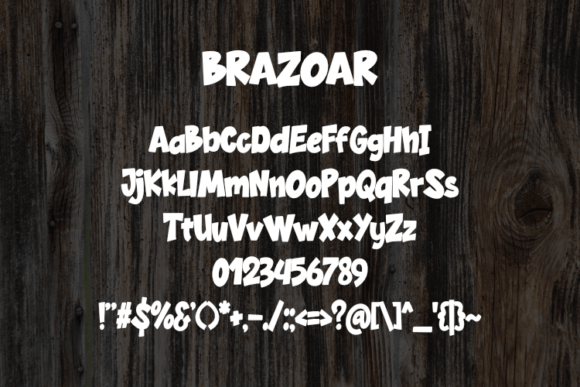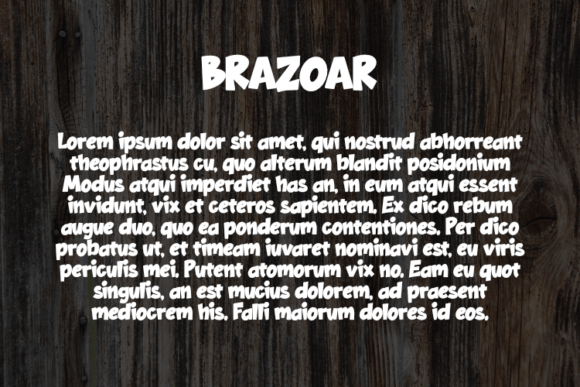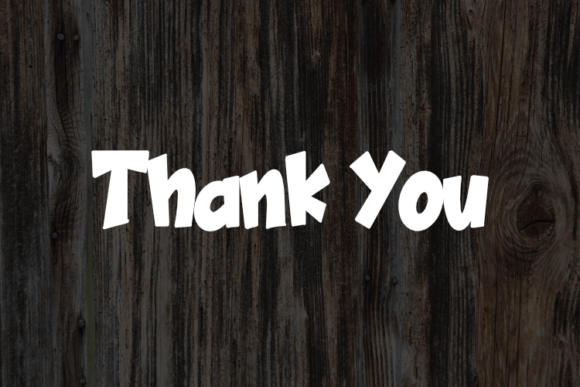
Unlock Endless Design Possibilities with Brazoar Font
In the realm of design, the right font can elevate your creative vision from ordinary to extraordinary. For designers and crafters seeking a versatile and impactful typeface, Brazoar Font emerges as a game-changer. Specifically crafted to infuse life into apparel designs, Brazoar is not just a font but a key to unlocking a myriad of design possibilities. Whether you’re working on T-shirts, accessories, or any other wearable art, Brazoar stands out for its adaptability, unique style, and compatibility across all design software platforms.
The Versatility of Brazoar Font
Brazoar’s design philosophy revolves around versatility. This font is meticulously crafted to ensure it can be seamlessly integrated into various design projects. From casual T-shirt designs to more sophisticated accessory designs, Brazoar adapts effortlessly. Its unique typographic edge not only captures attention but also provides a distinctive flair that can set your designs apart from the crowd.
Transforming Your Creative Vision
Brazoar Font is more than just a typeface; it’s a tool that transforms your ideas into remarkable realities. Its unique design elements offer a fresh perspective, enabling designers to experiment with new styles and themes. With Brazoar, you can easily create stunning apparel designs that resonate with your audience. Whether you’re aiming for a vintage look, a modern aesthetic, or something in between, Brazoar provides the flexibility to achieve your desired outcome.
Why Choose Brazoar Font?
- Versatility: Perfect for a wide range of design projects, from T-shirts and hoodies to accessories and more.
- Unique Style: Offers a distinctive typographic edge that adds a fresh touch to your designs.
- Easy to Use: Designed to be user-friendly, making it accessible for both beginners and seasoned designers.
- Limitless Creativity: Empowers you to turn your creative visions into standout designs.
Tips for Maximizing Brazoar’s Potential
To truly harness the power of Brazoar Font, consider experimenting with different design elements and software features. Here are a few tips:
- Play with Colors: Brazoar looks great in various colors and gradients. Don’t be afraid to experiment with different palettes.
- Mix and Match: Combine Brazoar with other fonts for a unique contrast that adds depth to your designs.
- Utilize Effects: Explore different text effects and styles within your design software to give Brazoar an extra edge.
Brazoar Font is a powerful tool for designers and crafters looking to elevate their apparel designs. Its versatility, unique style, and technical compatibility make it an invaluable asset for anyone seeking to bring their creative visions to life. With Brazoar, you’re not just choosing a font; you’re unlocking a world of design possibilities. So, dive in, explore the endless potential of Brazoar, and watch your designs transform into remarkable realities.